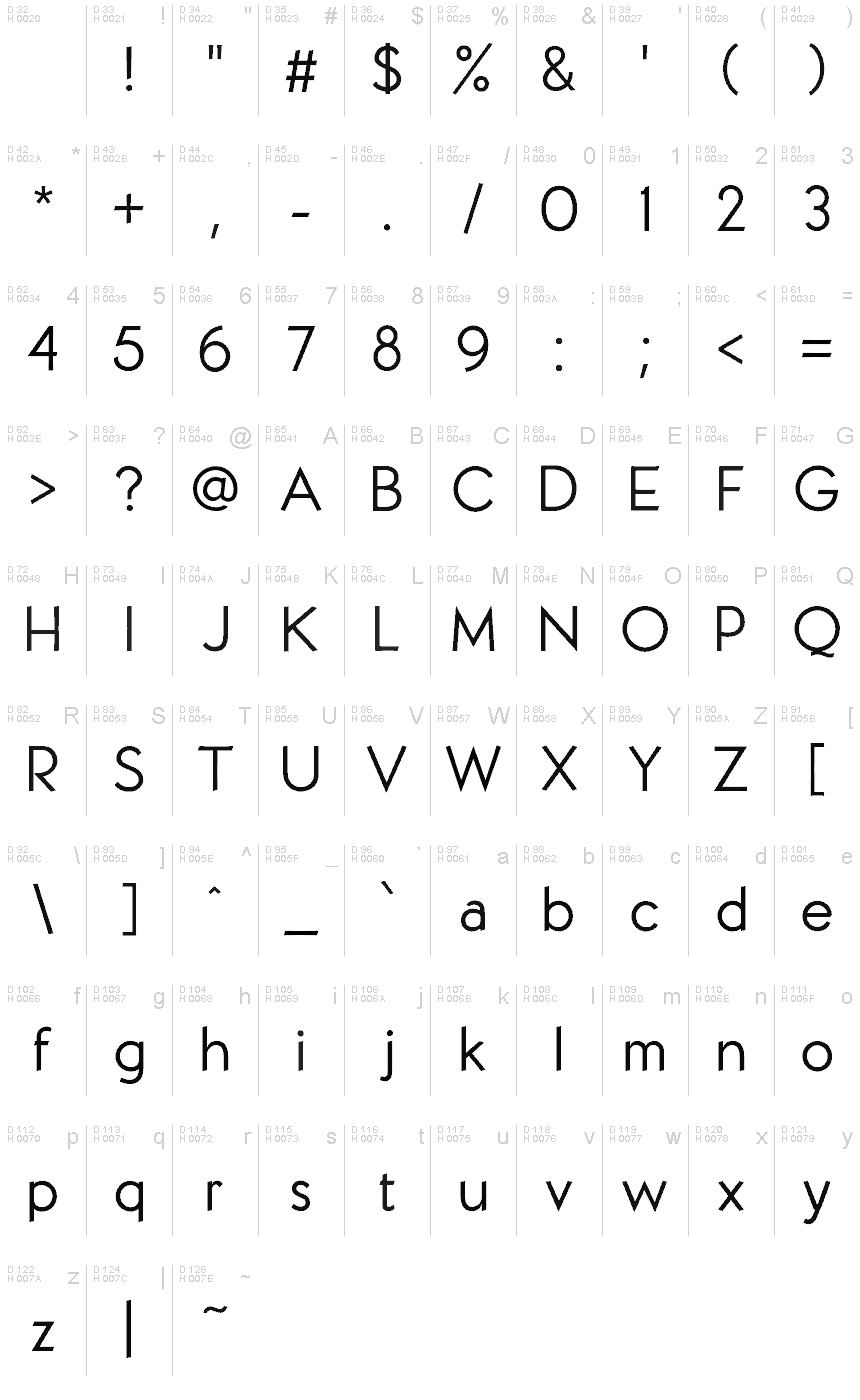
Nicholson Gothic Regular
Nicholson Gothic is a distinctive sans serif font that exudes a sense of rugged elegance. Its clean lines and geometric forms create a strong, modern aesthetic, while subtle details like the tapered terminals and slightly angled terminals add depth and character. This versatile typeface would be well-suited for a range of applications, from signage and branding to editorial design and packaging. Its legibility and unique personality make it a compelling choice for designers seeking to convey a bold, yet refined visual identity.
The font's sturdy, yet refined appearance lends itself particularly well to outdoor and utilitarian applications, such as wayfinding systems or product labeling. However, its versatility also allows it to be applied effectively in more refined, typographic-driven designs, where its distinctive qualities can elevate the overall aesthetic.